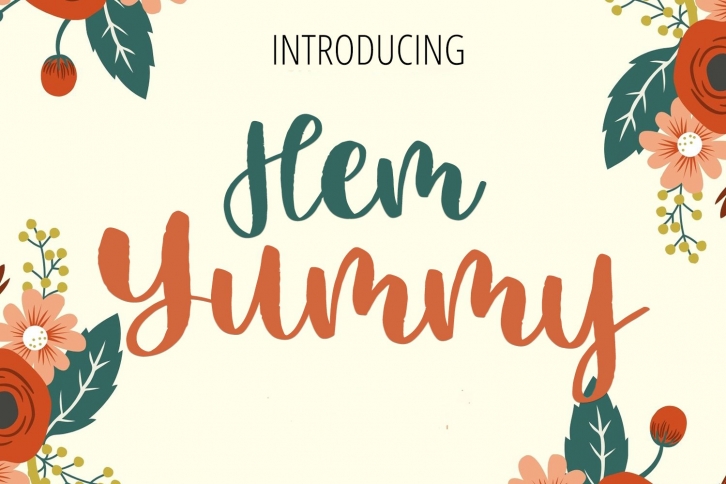
Hem Yummy Beauty Lettering Font Download
Hem Yummy Beauty Lettering is a great font that was designed by Lettering Studio. Imagine the amount of combinations you can create using this font! The archive is 2.33 MB and it was released on October 6, 2020. Hem Yummy Beauty Lettering looks beautiful on wedding invitations, greeting cards, logos, posters, labels, t-shirt designs, logos, business cards and is perfect for use in ink or watercolor works, fashion, magazines, packaging and food menus, children's books and more!